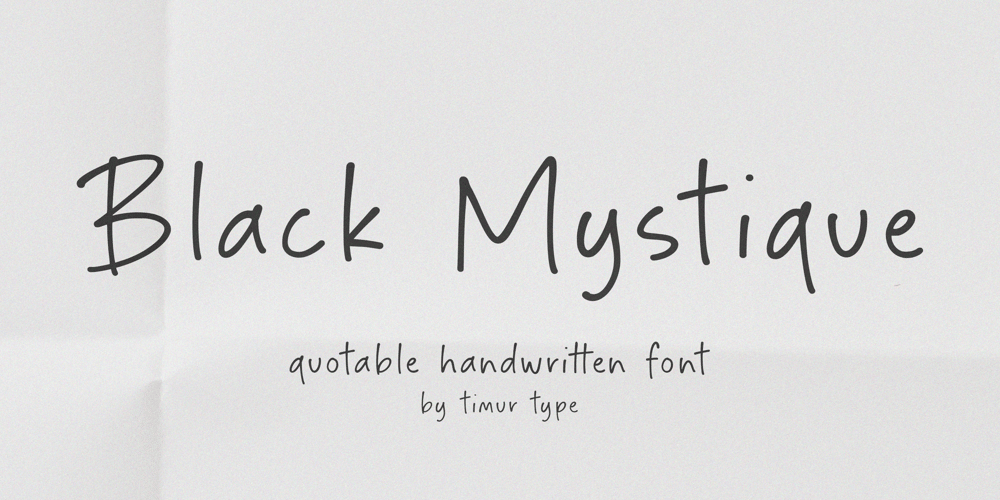
Black Mystique Font Family was designed by Wara Sigit Tri Pamungkas and published by Timurtype. Black Mystique contains 1 styles and family package options. Introducing by Timur typeProudly Present, Black Mystique A Handwritten FontBlack Mystique is perfect for product packaging, branding project, megazine, social media, wedding, or just used to express words above the background.Black Mystique also multilingual support.Enjoy the font.Thank you!